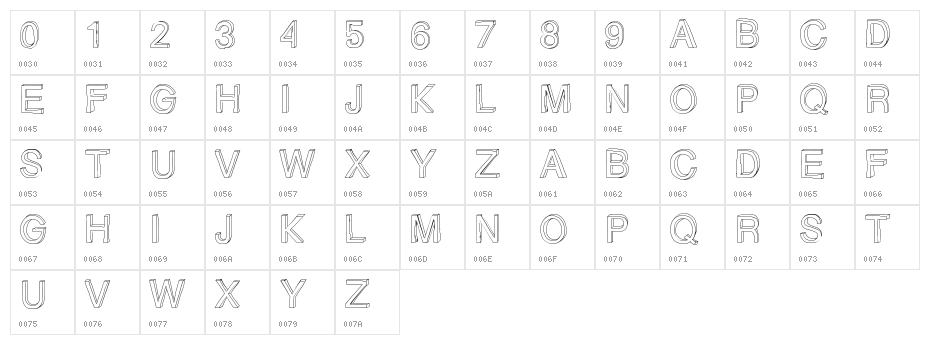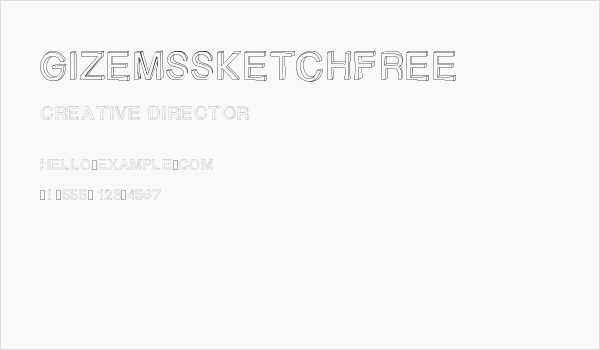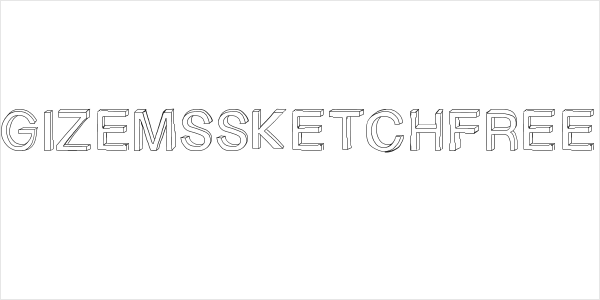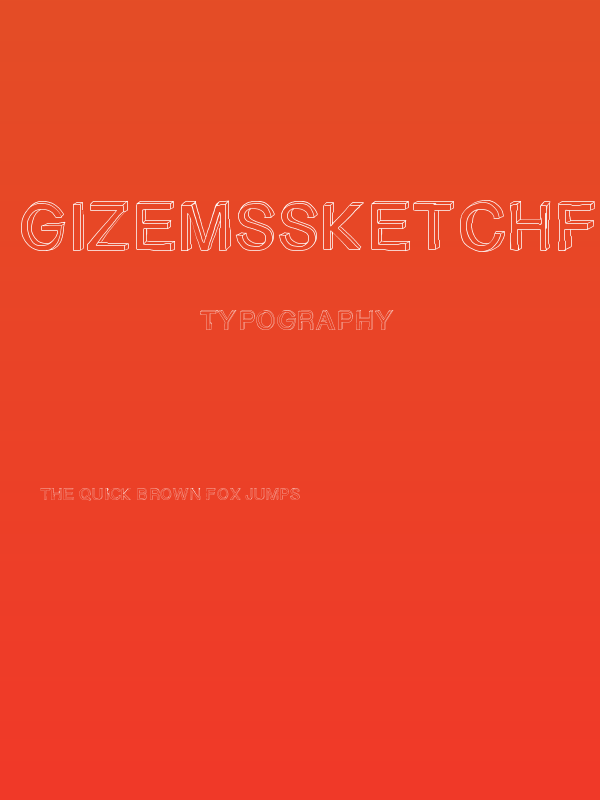
GizemsSketchFree Font
GizemsSketchFree Description
This font features a unique sketch-like outline that gives it a hand-drawn appearance. The characters are uppercase and numerals, each with a distinct double-line style that adds depth and dimension. The lines are consistent in thickness, providing a uniform look across all characters. This font is ideal for projects that require a playful or artistic touch, as it combines the structure of traditional sans-serif fonts with a creative twist. The spacing between characters is normal, ensuring readability while maintaining its decorative appeal.
| Proposed Projects | Ideal for artistic projects, children's books, posters, and creative branding. |